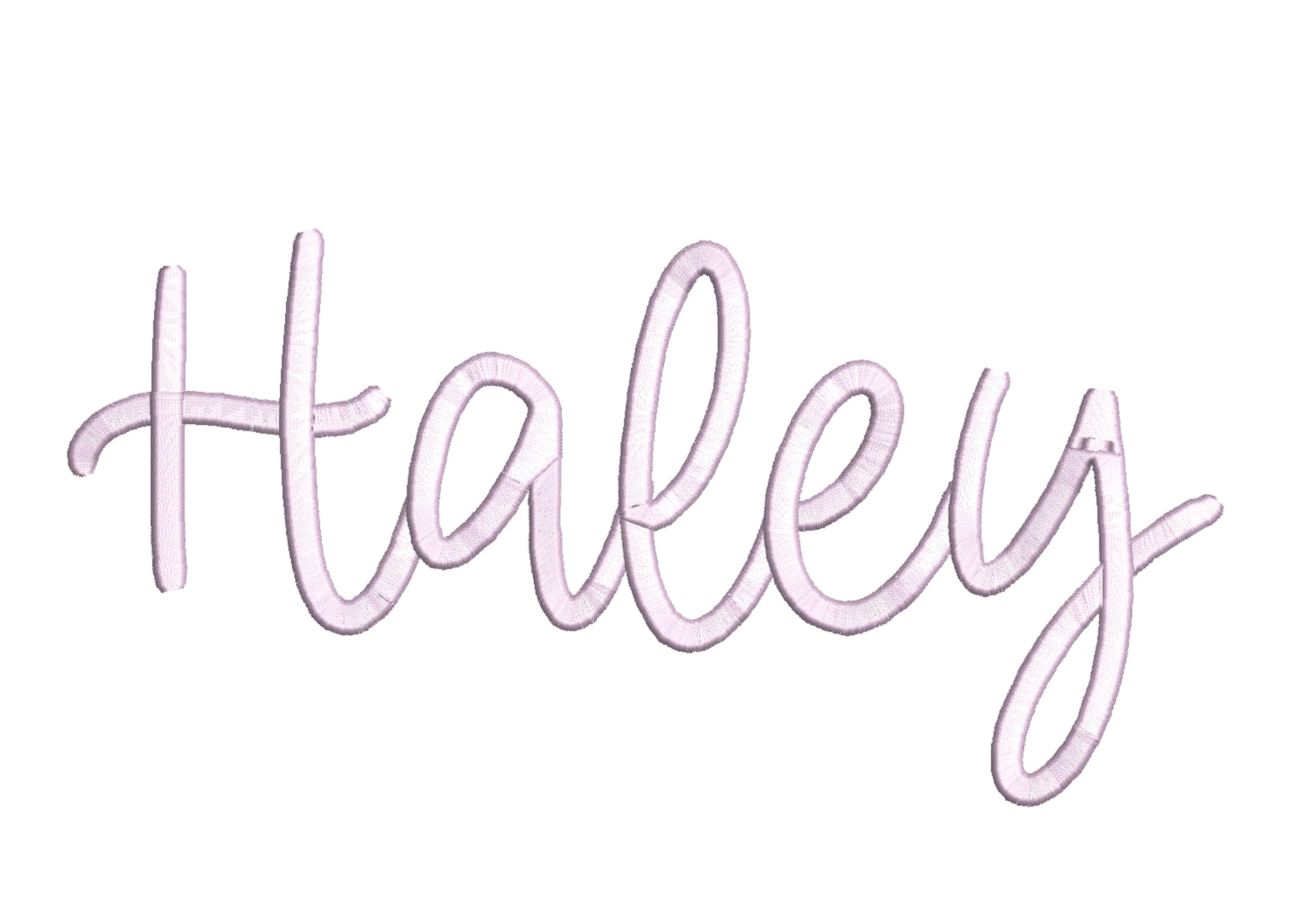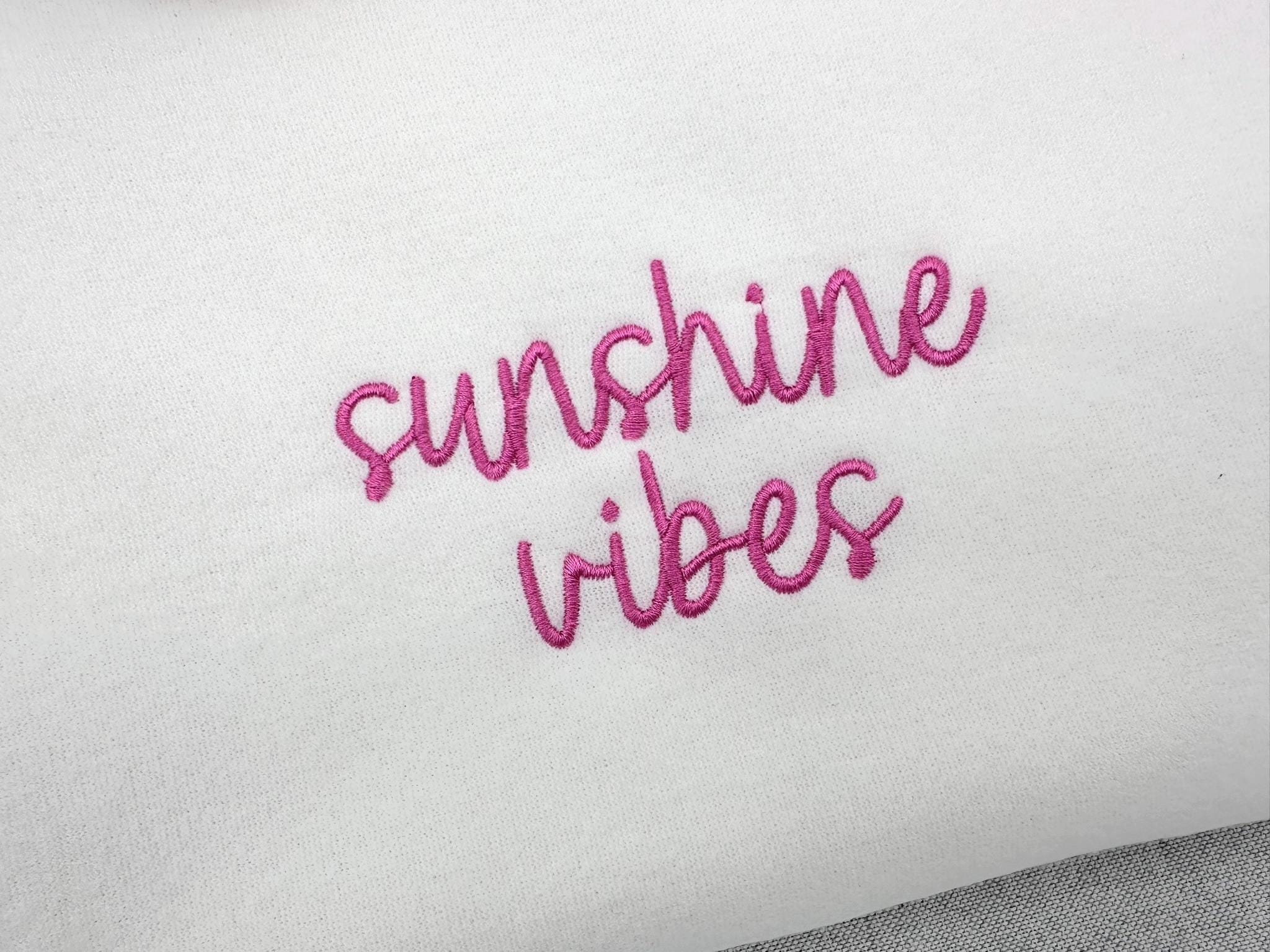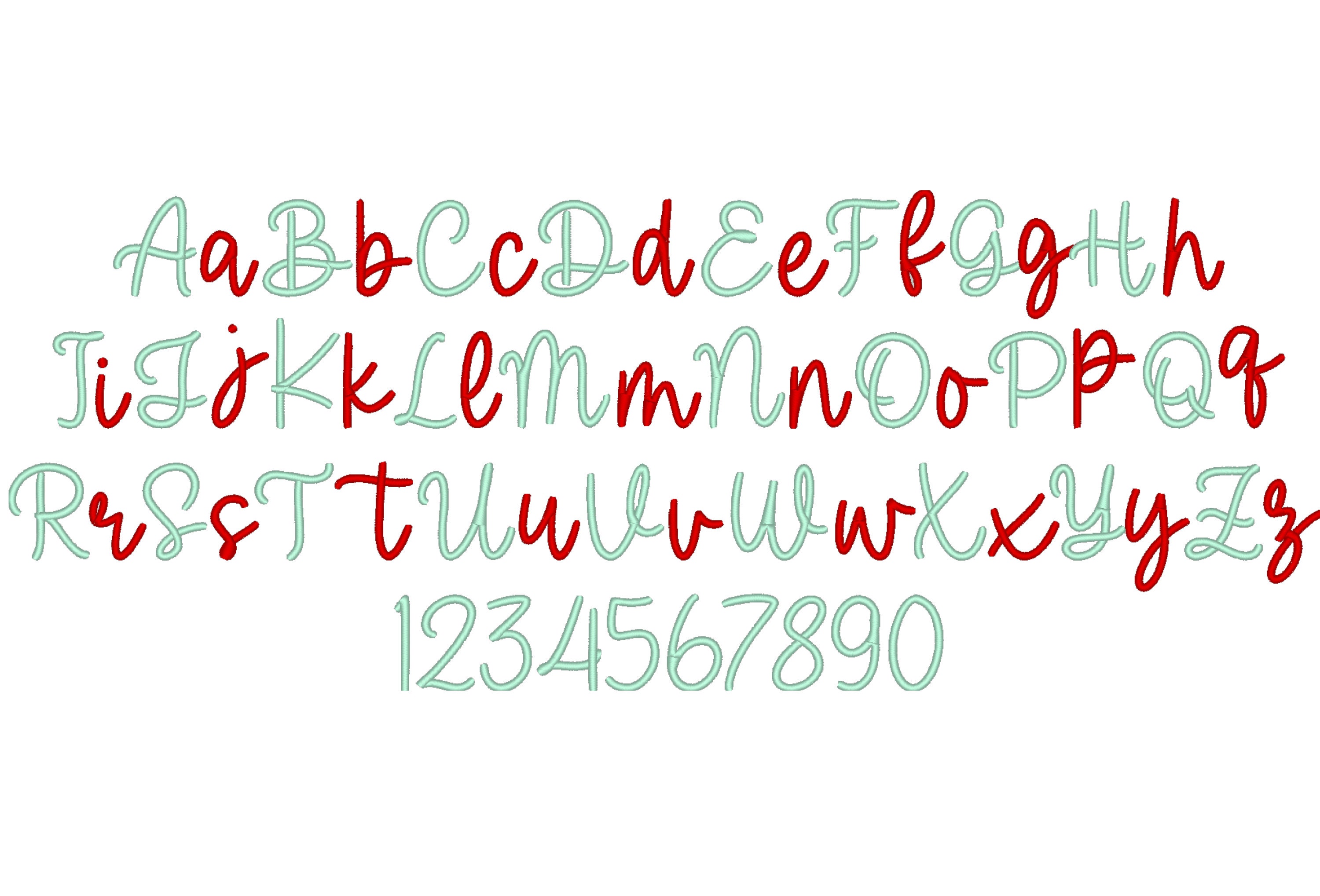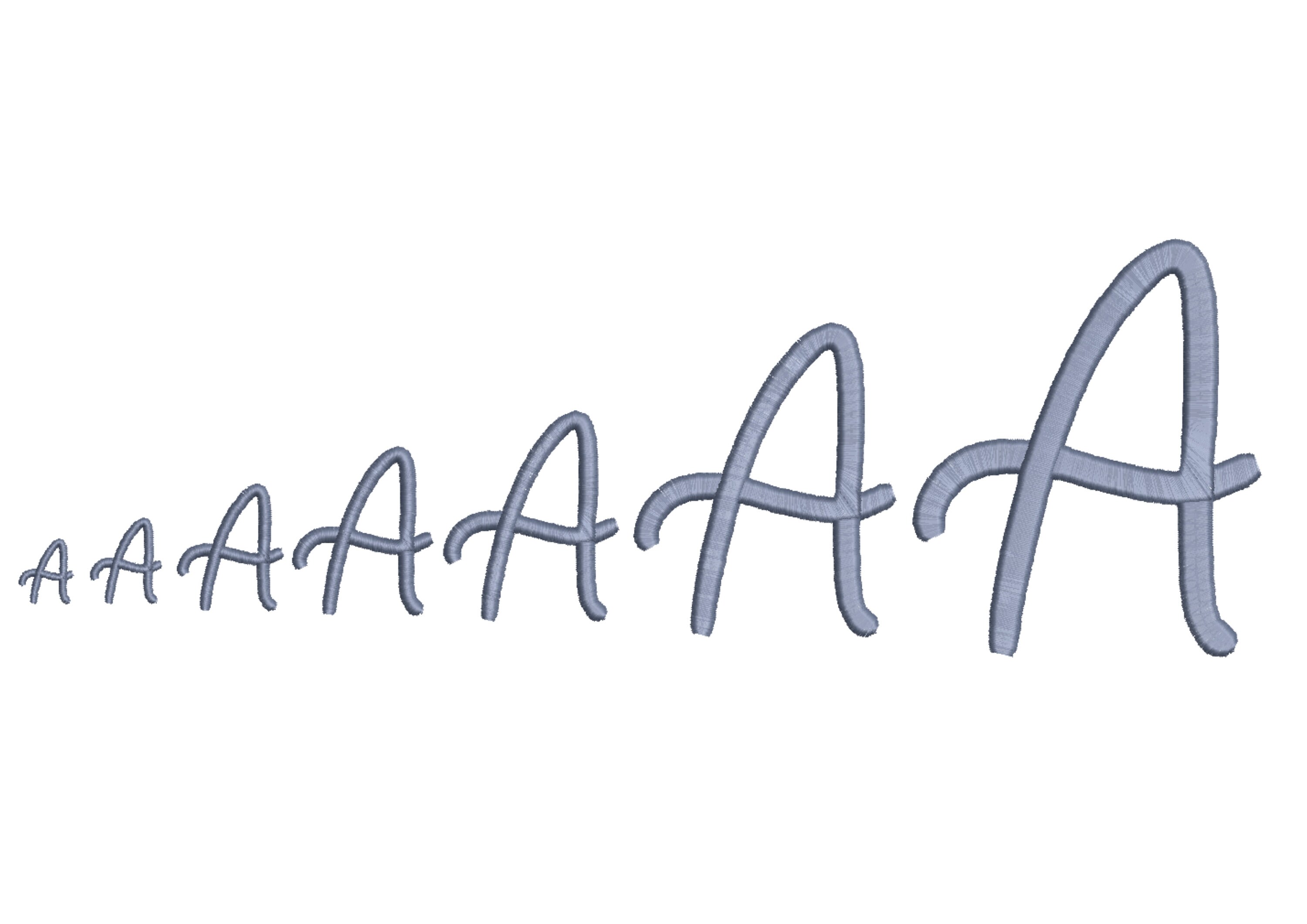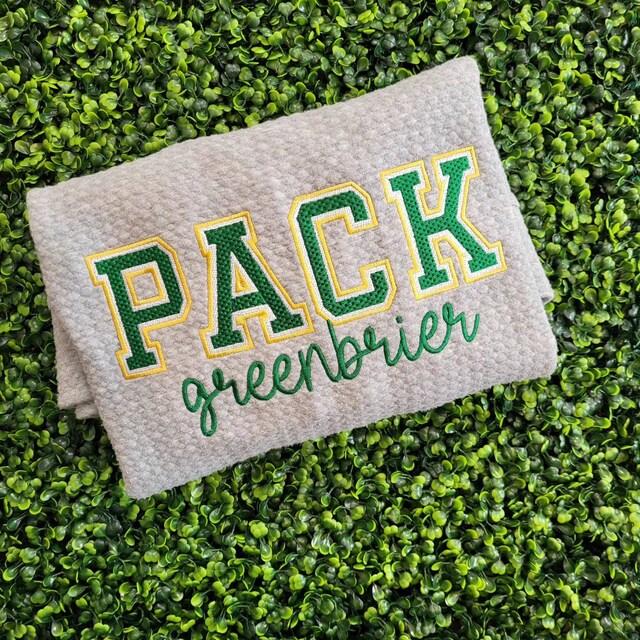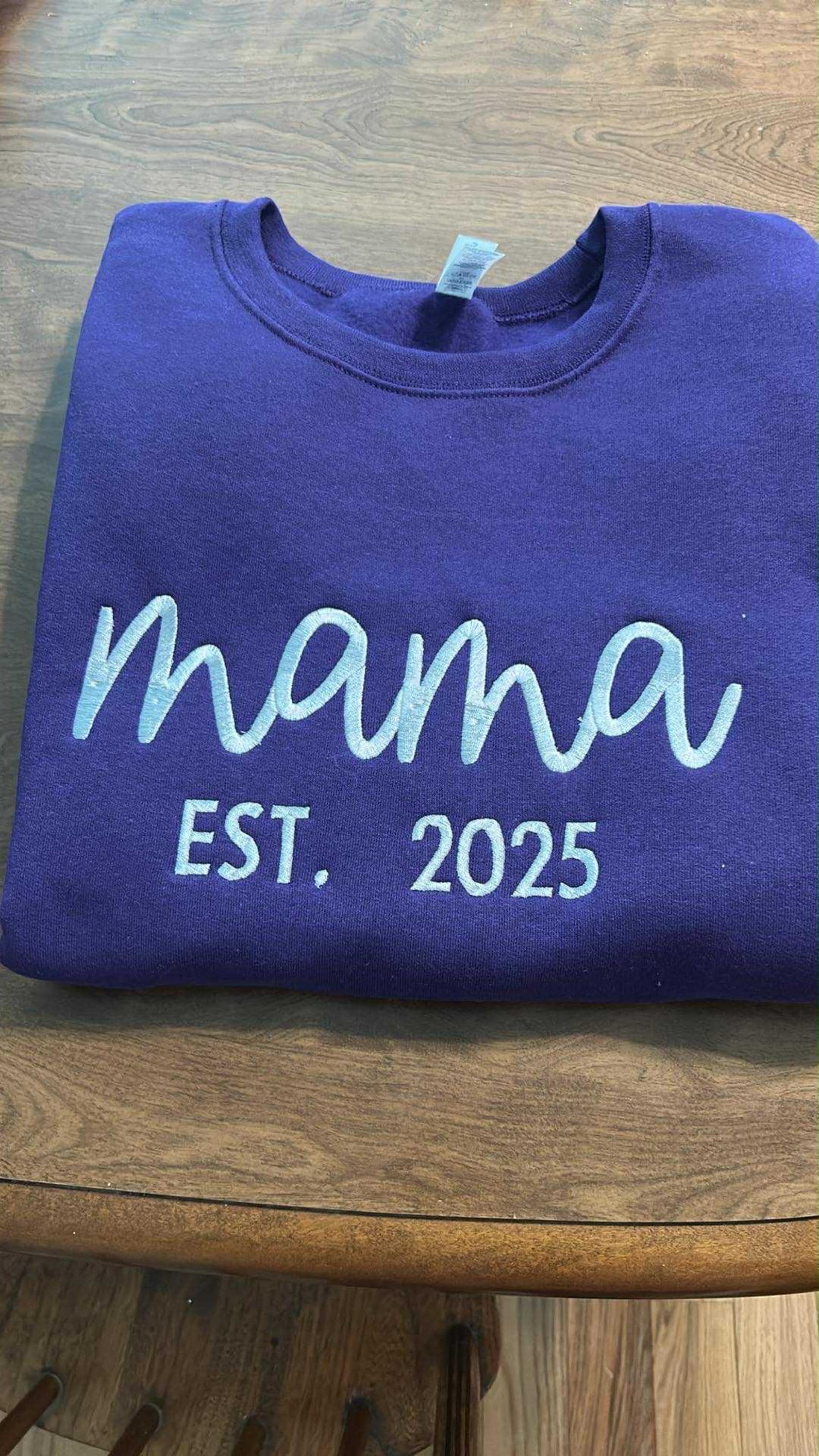
Sweatshirt wedding script handwritten cursive Font satin stitch alphabet machine embroidery designs from 0.6 thru 4 inches, monogram name BX
0.6 inch
0.8 inch
1.2 inches
1.6 inches
Uppercase and lowercase letters, and numbers.
This font is beautiful and stitched perfectly
I have been using this font non-stop! I love how it looks and comes out great :)
obsessed with this font- so cute for embroidery!
The item matches the description very well! It’s a lovely font!